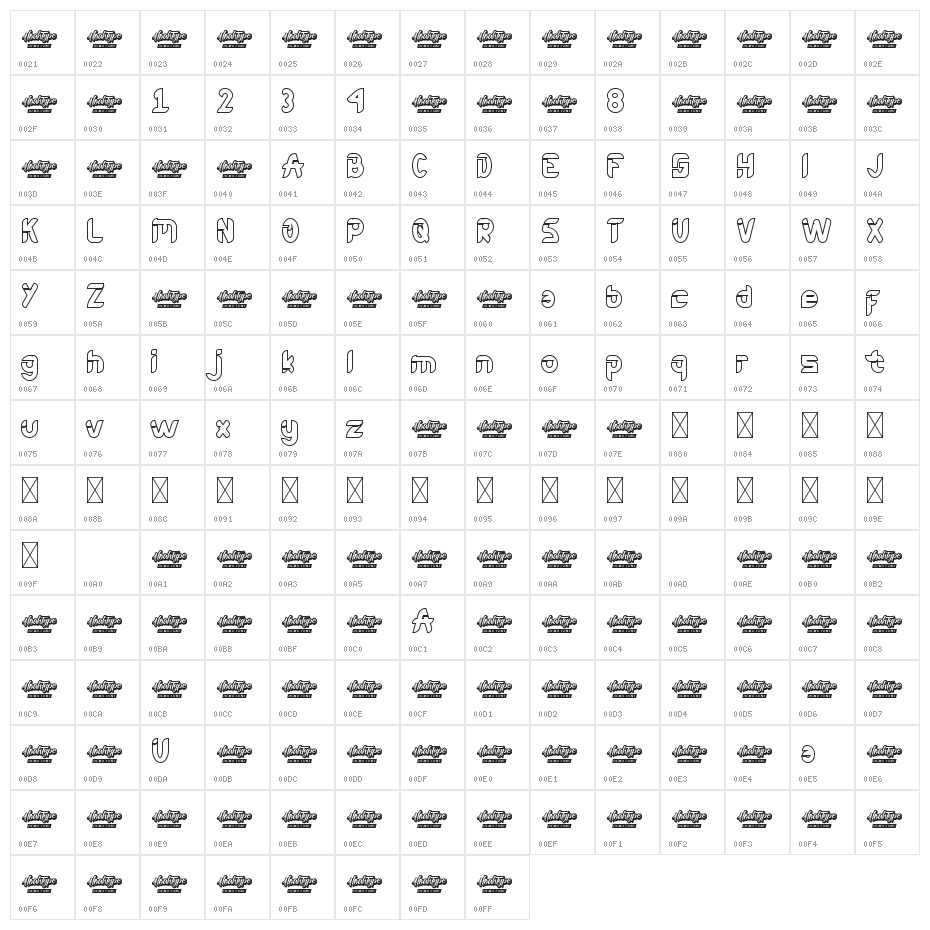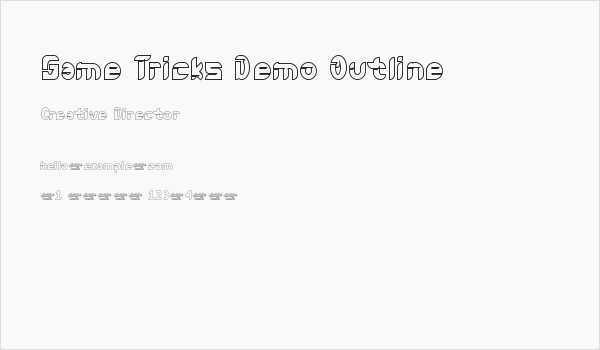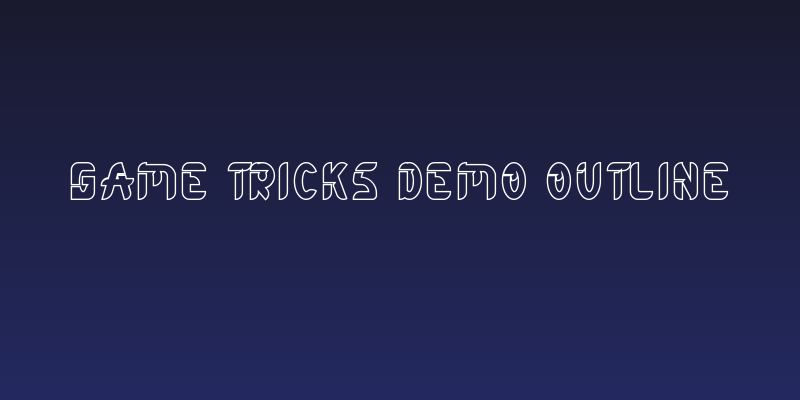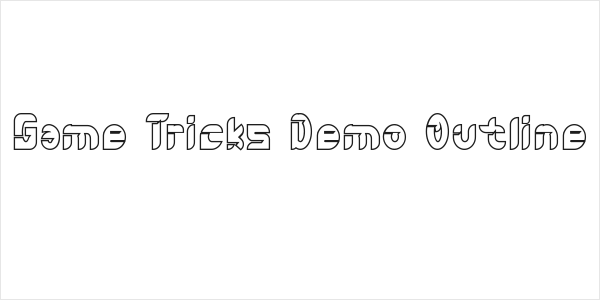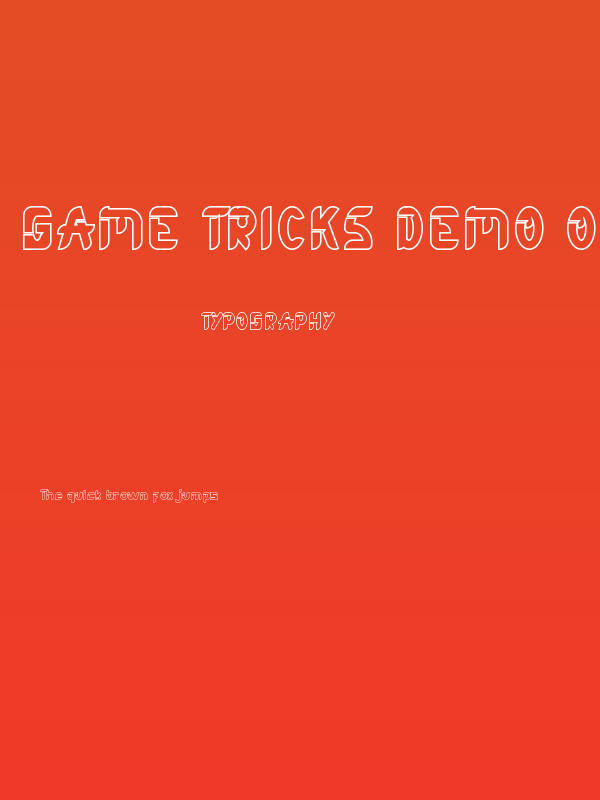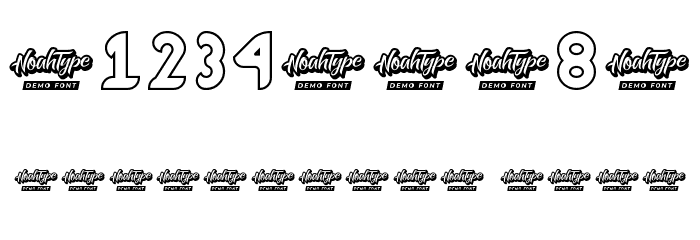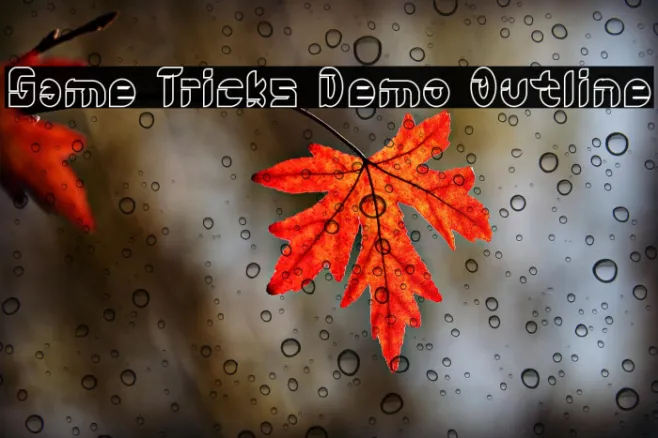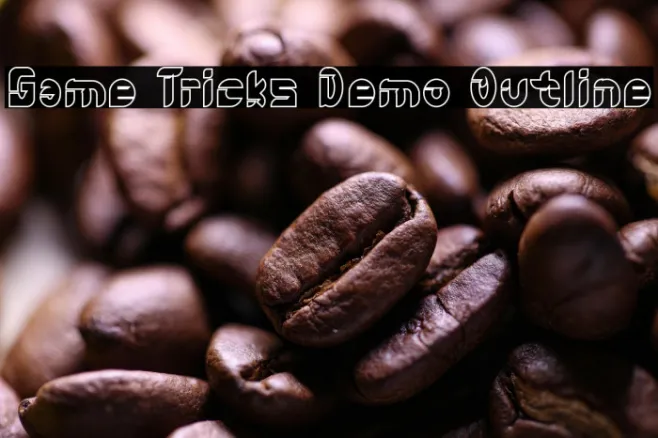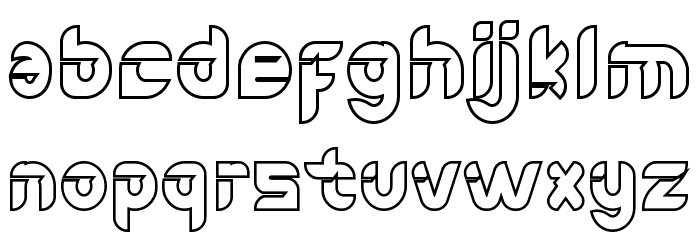
Game Tricks Demo Outline Font
Game Tricks Demo Outline Description
This font features a unique outline style that combines geometric shapes with a playful, modern aesthetic. The uppercase letters are bold and structured, with sharp angles and clean lines that create a futuristic look. The lowercase letters maintain the same geometric theme but with a slightly softer appearance, making them versatile for various design contexts. Numbers and special characters are consistent with the overall style, ensuring a cohesive look across all text elements. The font's outline nature gives it a light and airy feel, perfect for projects that require a modern and dynamic touch.
| Proposed Projects | Ideal for video game titles, tech-themed posters, modern branding, and digital art projects. |